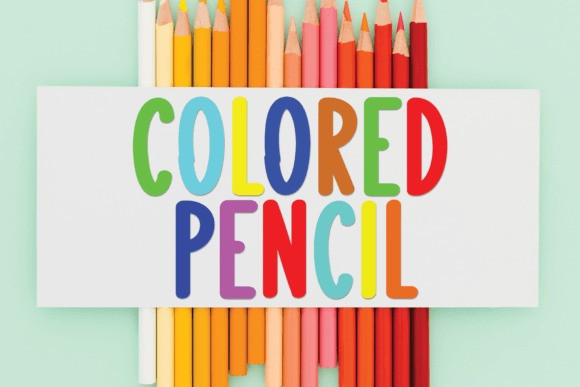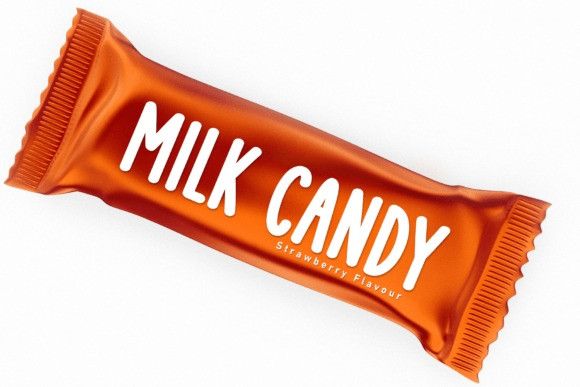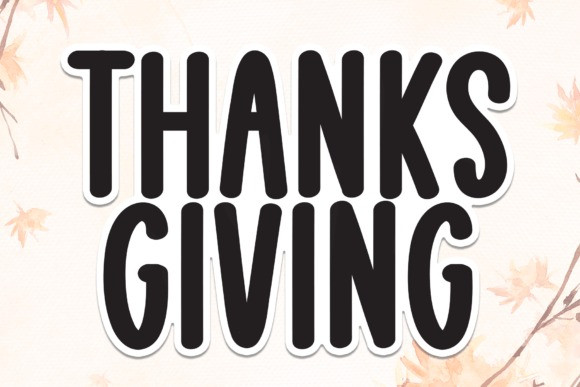
Thanks Giving Playful Font
Thanks Giving Playful Font is a straightforward and bold display typeface. Its simplicity makes it perfect for making a bold statement in your designs. Whether you’re expressing gratitude on a banner or emphasizing a message, Thanks Giving font delivers a strong and clear message with style.